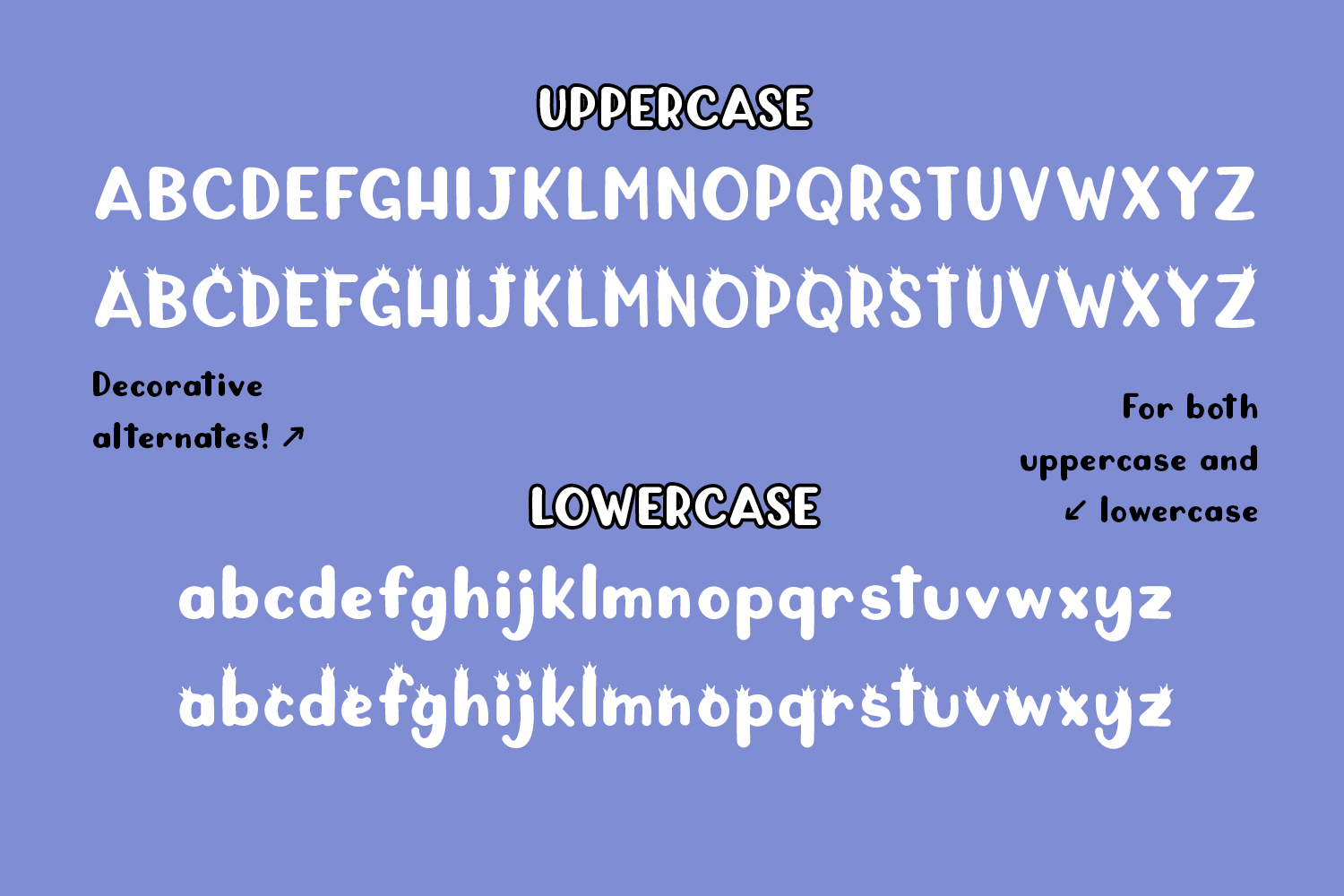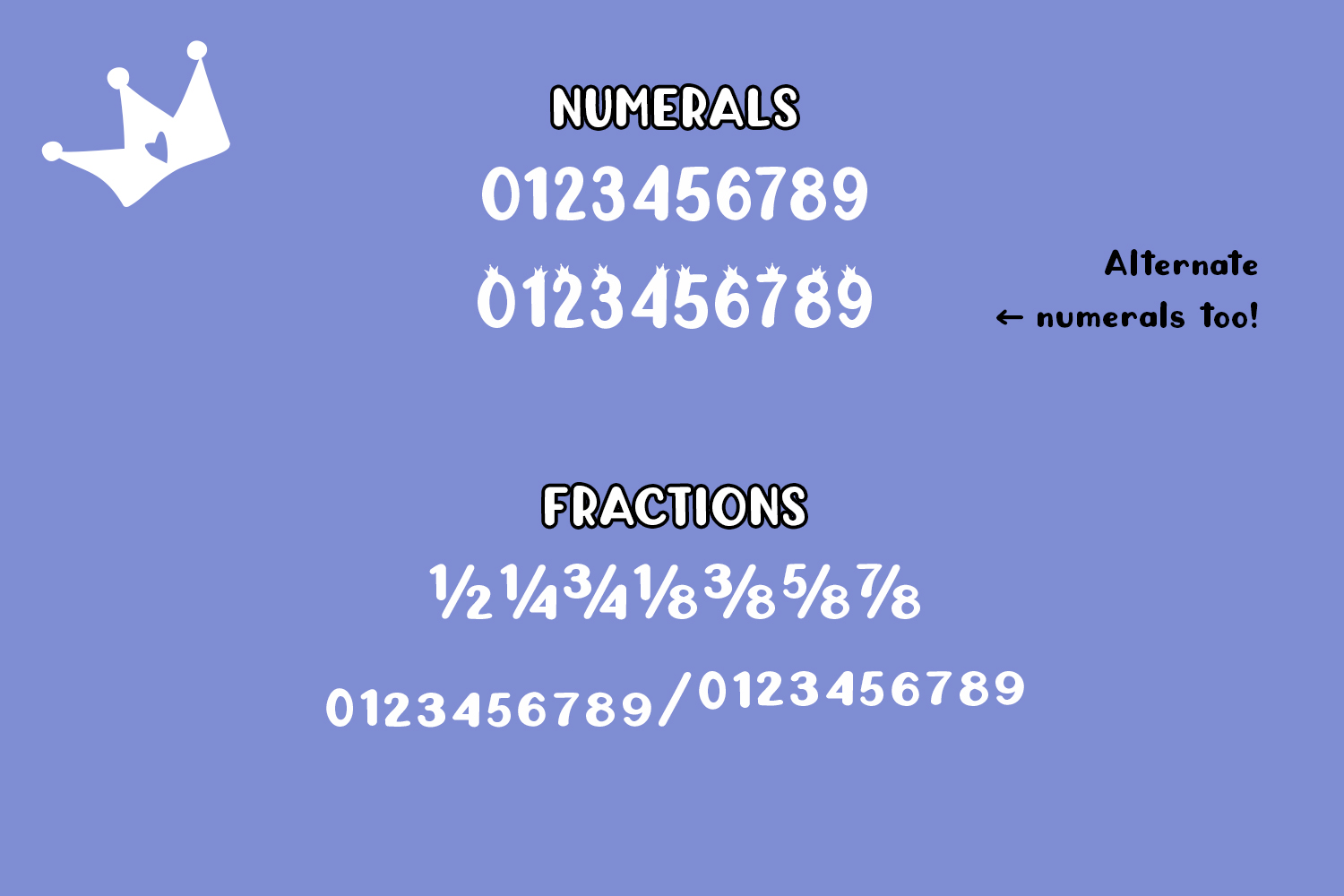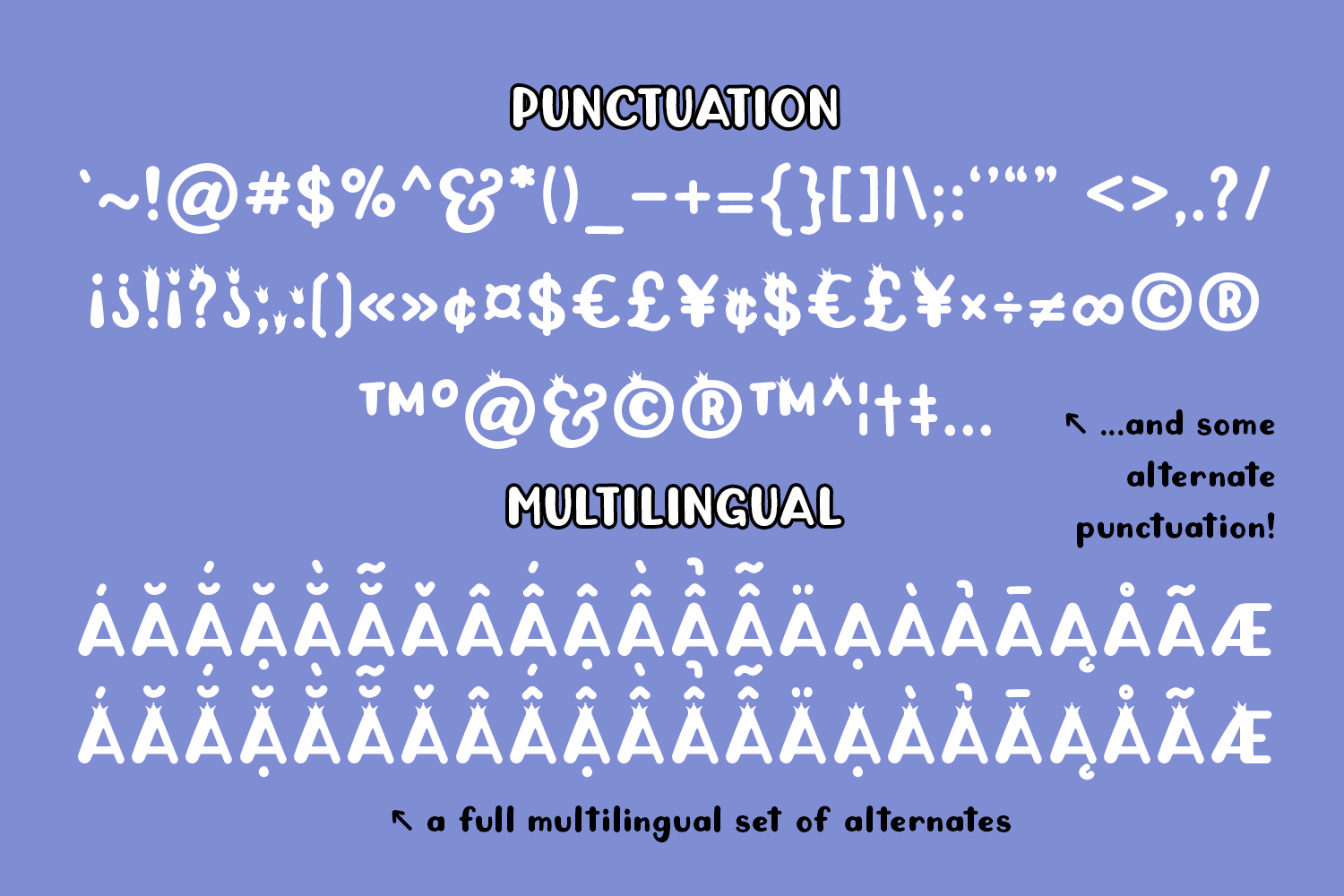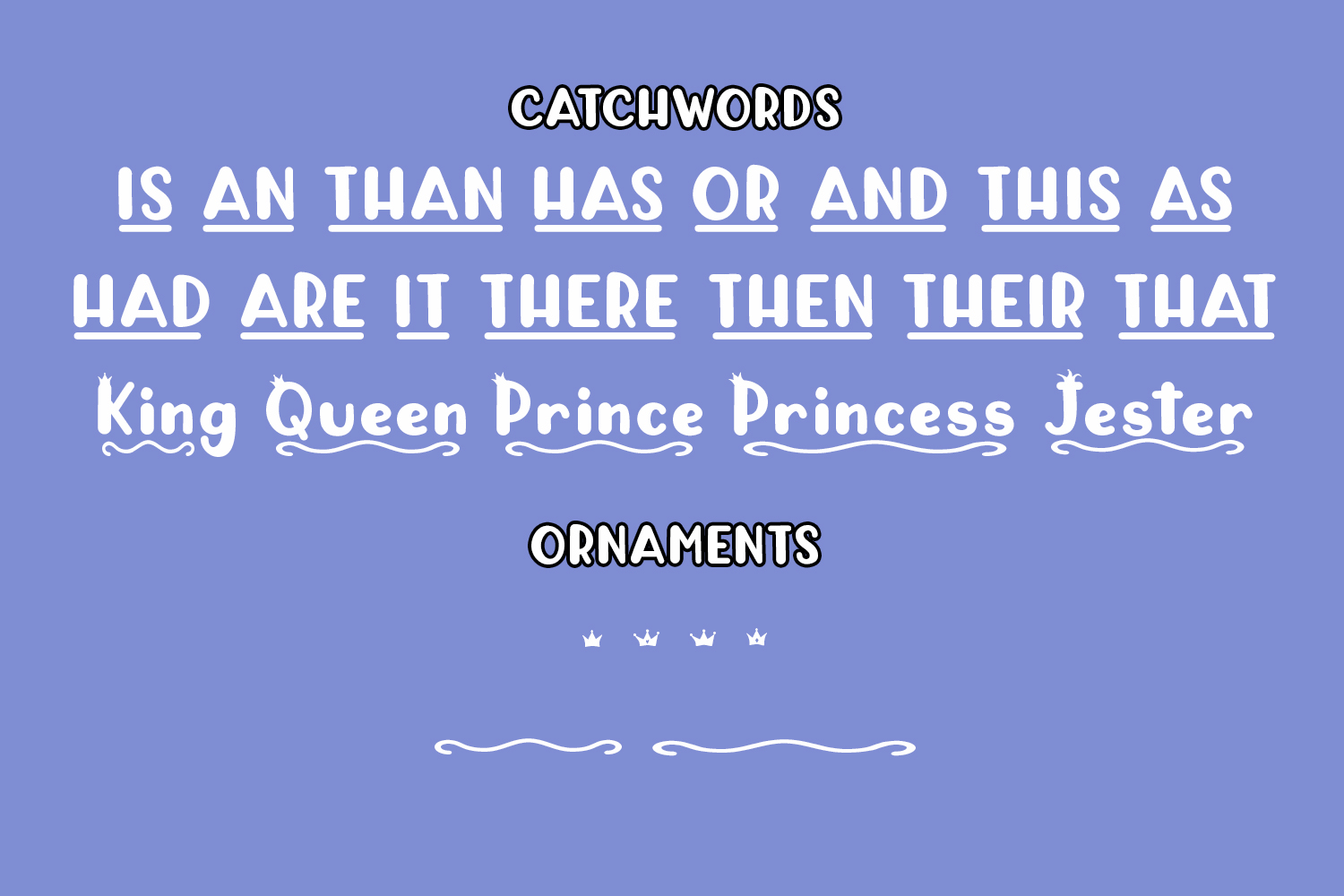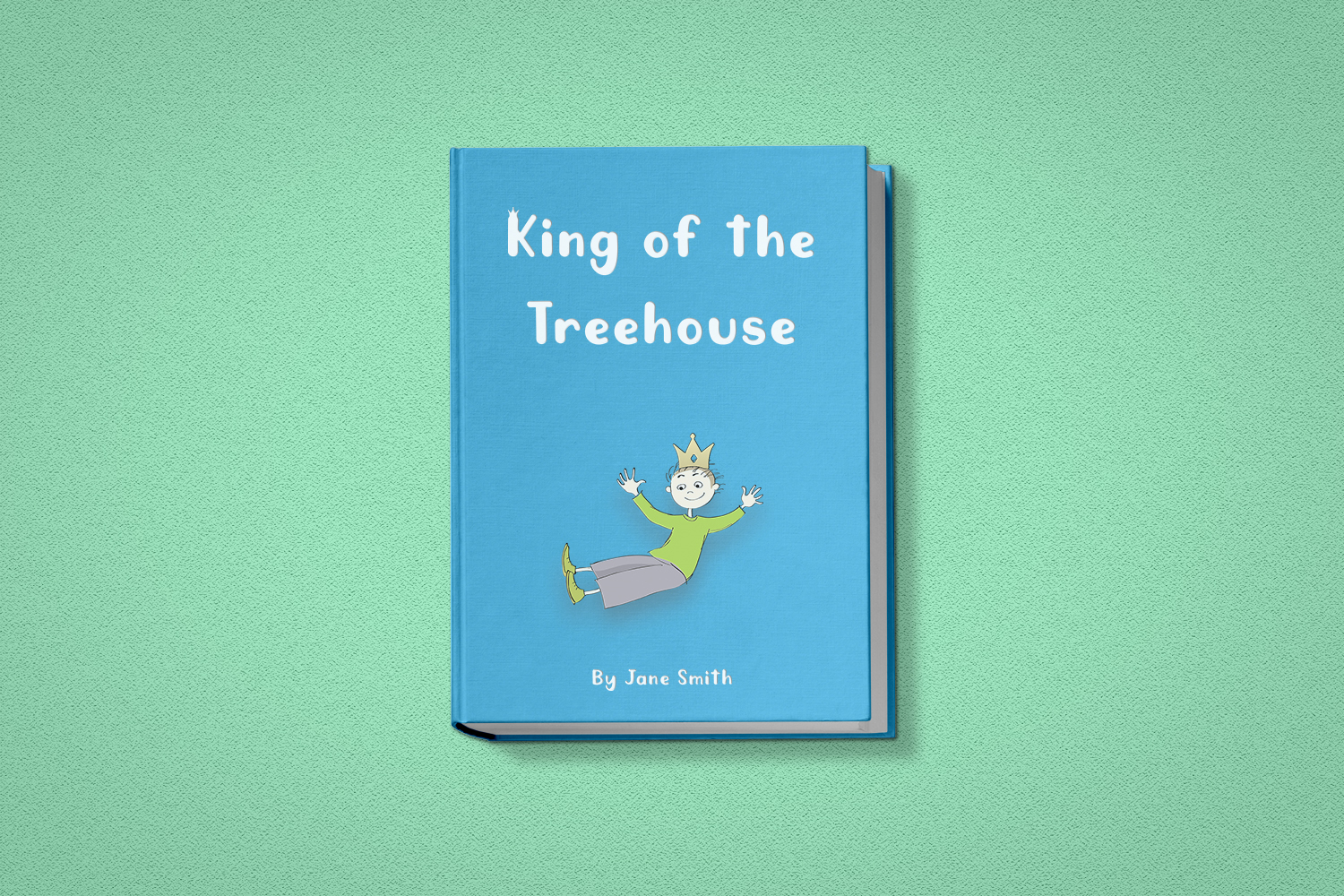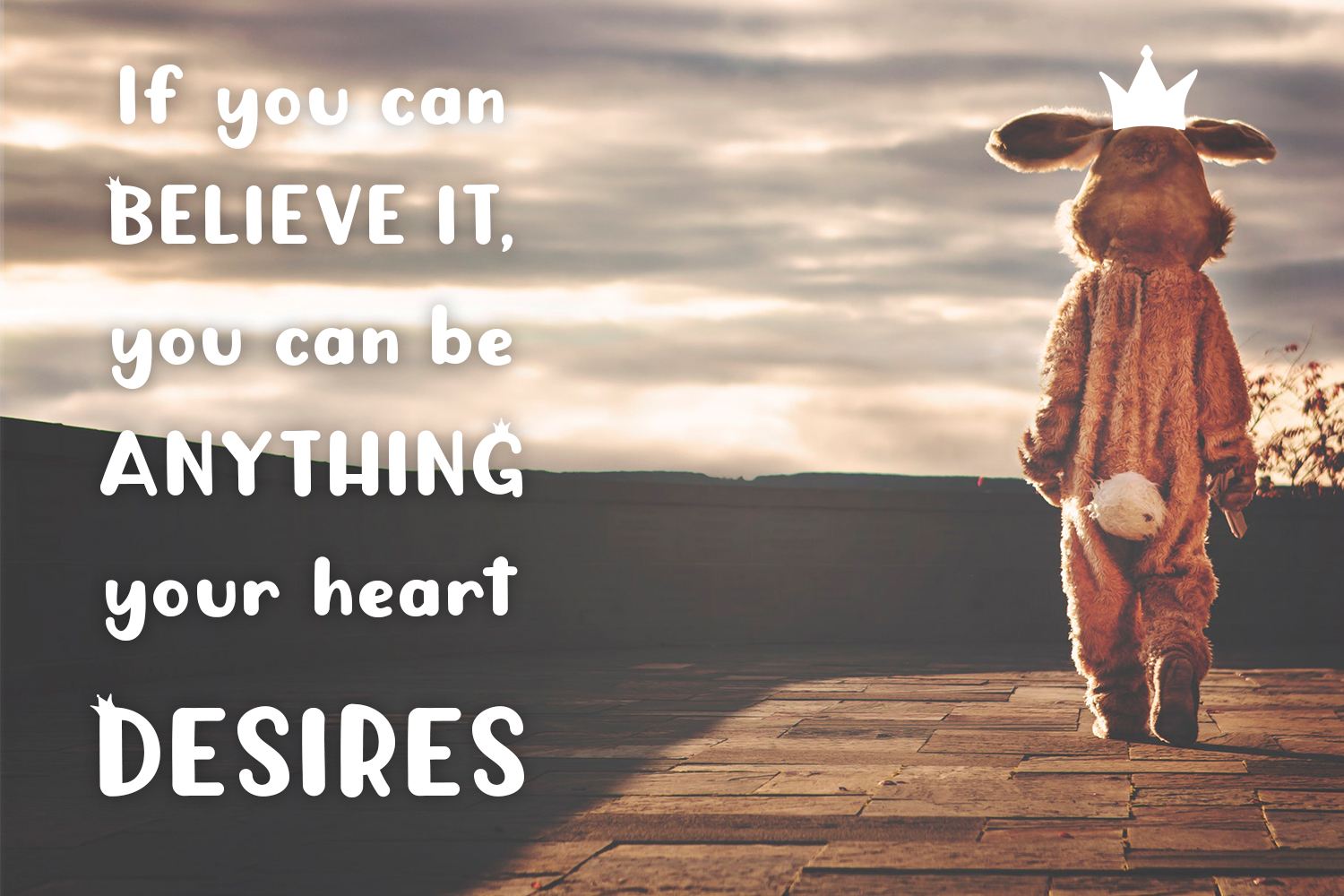
Introduction to Prince Rollick Font
Set your inner child free with Prince Rollick.
Prince Rollick comes with a standard set of characters and a set of alternates that have been specially crowned Multilingual support is also available for the alternate set.